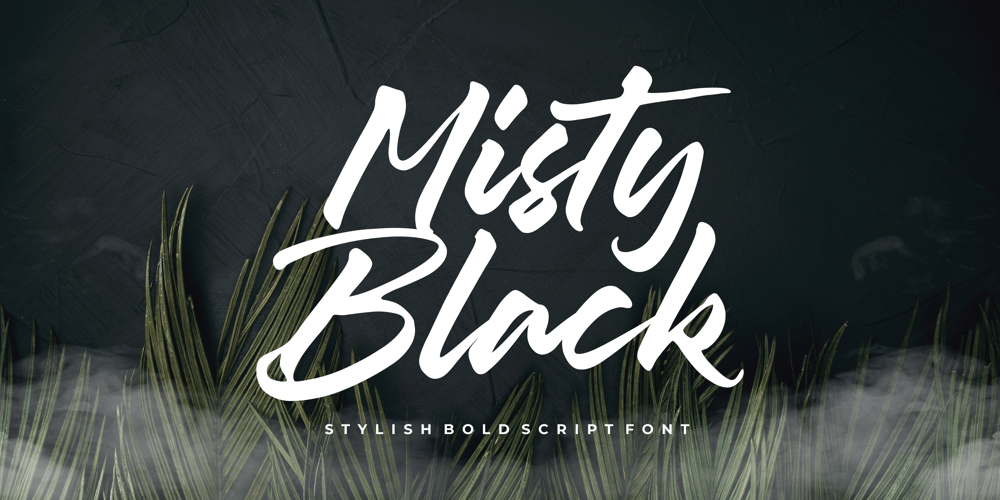
Misty Black Font Family was designed by Restu Angga and published by Balpirick. Misty Black contains 1 styles and family package options. Proudly Present, Misty Black Font.Misty Black is a Stylish Bold Script Font.Misty Black is perfect for product packaging, branding project, magazine, social media, wedding, or just used to express words above the background.Misty Black also multilingual support.Enjoy the font, feel free to comment or feedback, send me PM or email.Thank you!